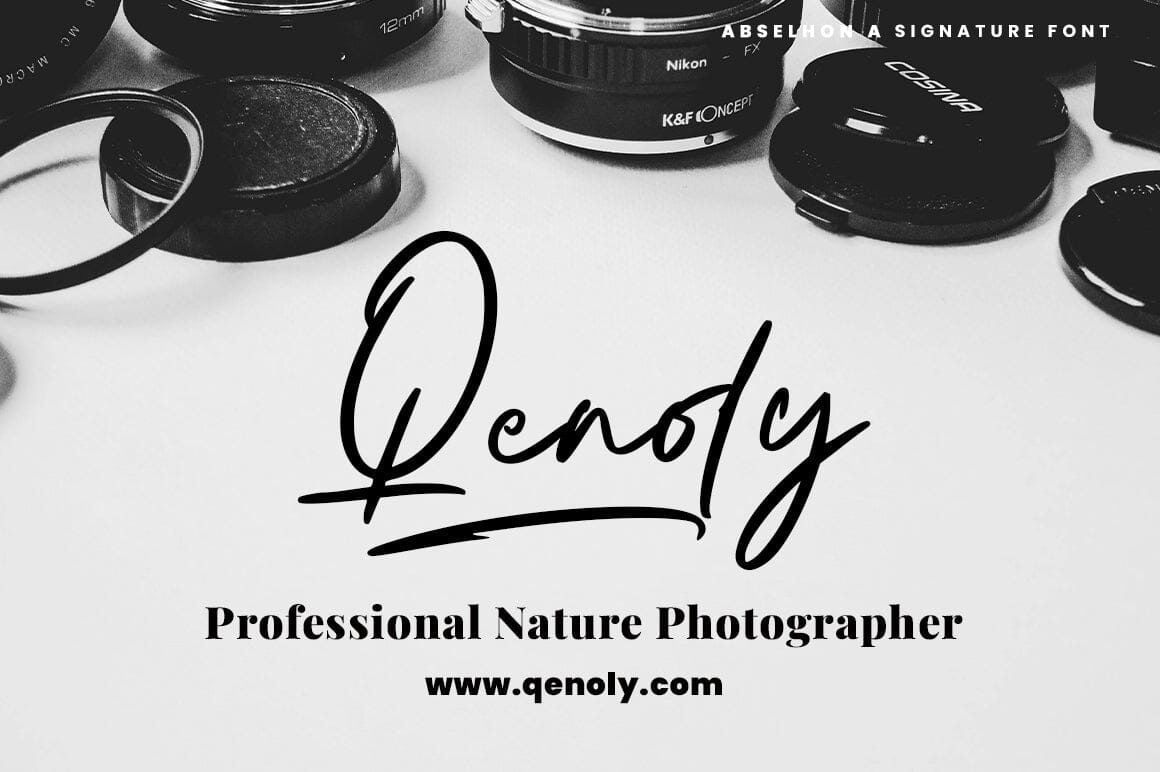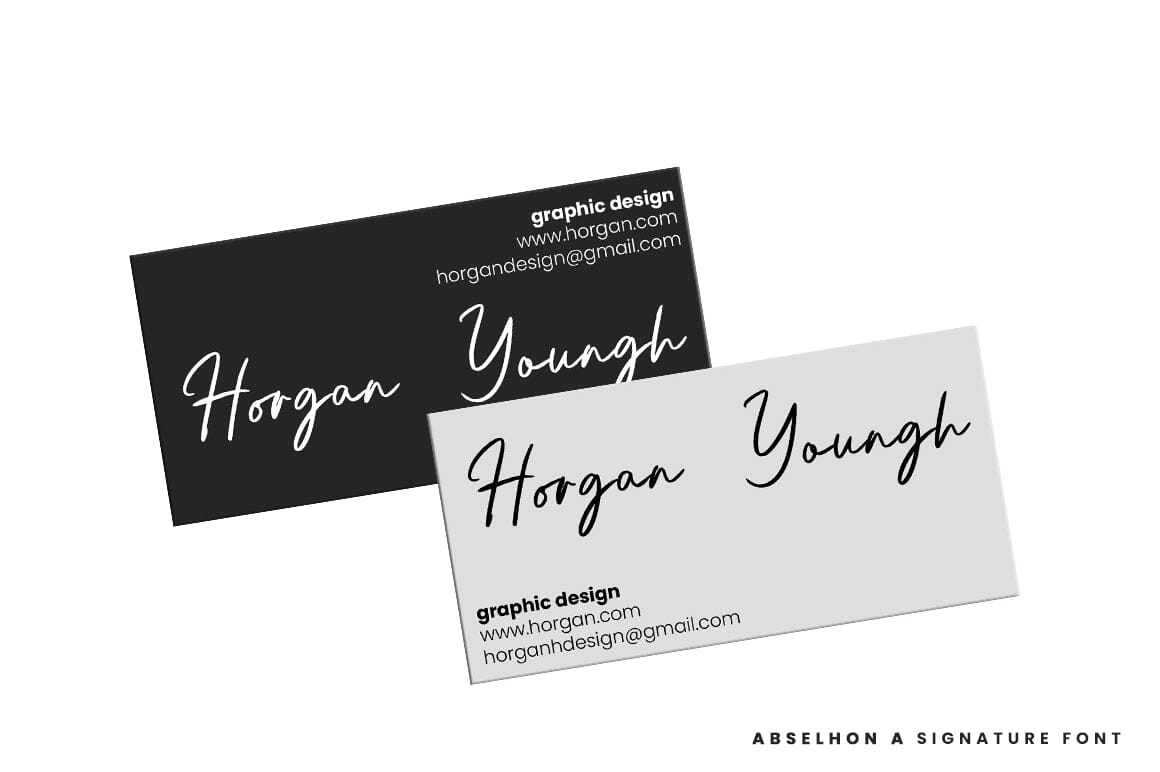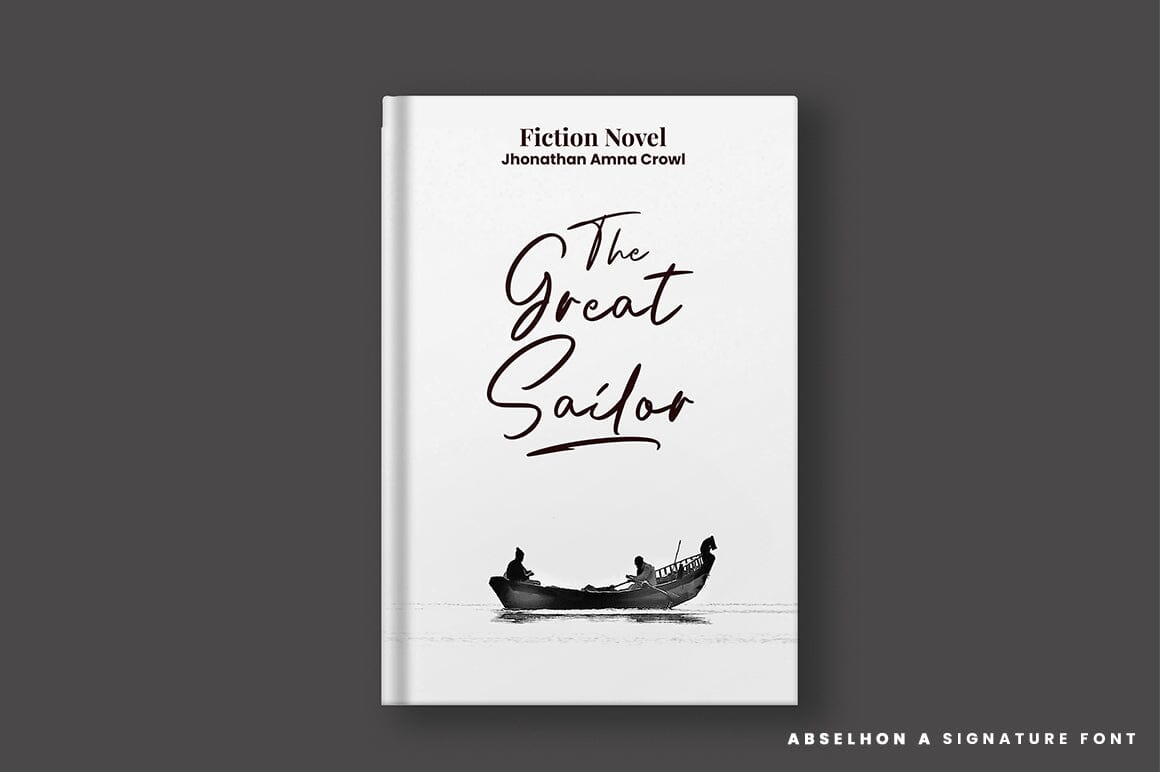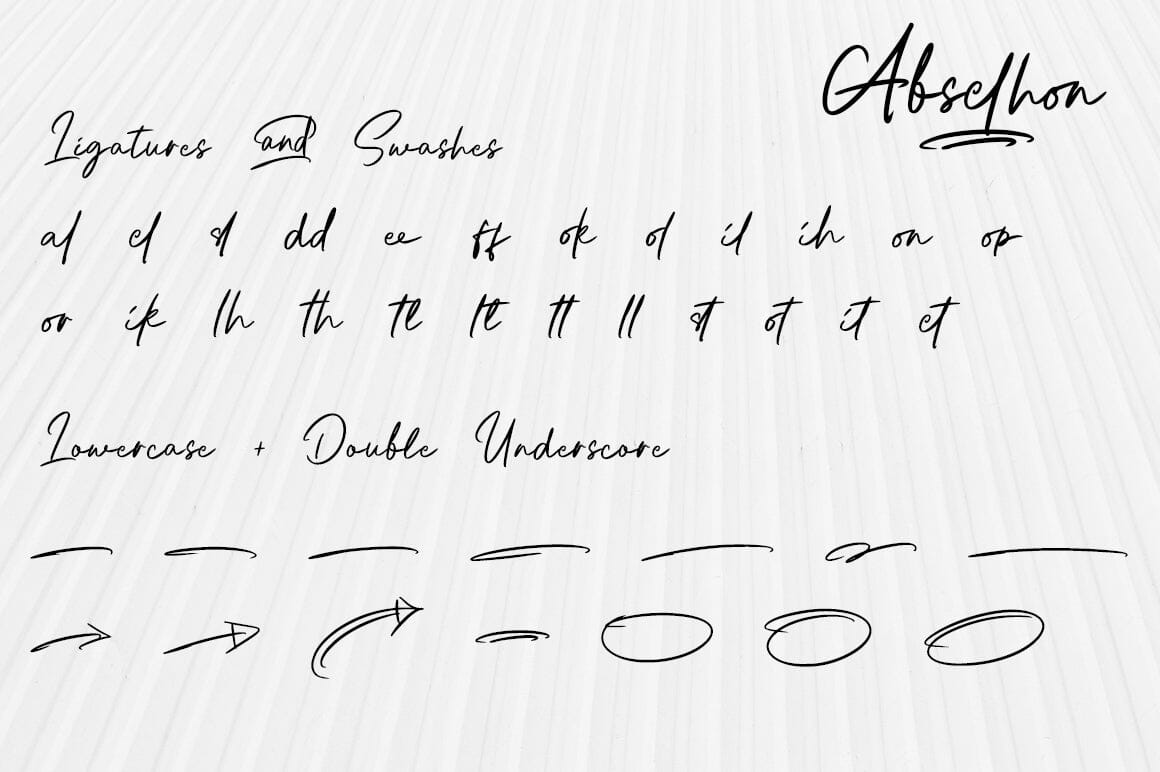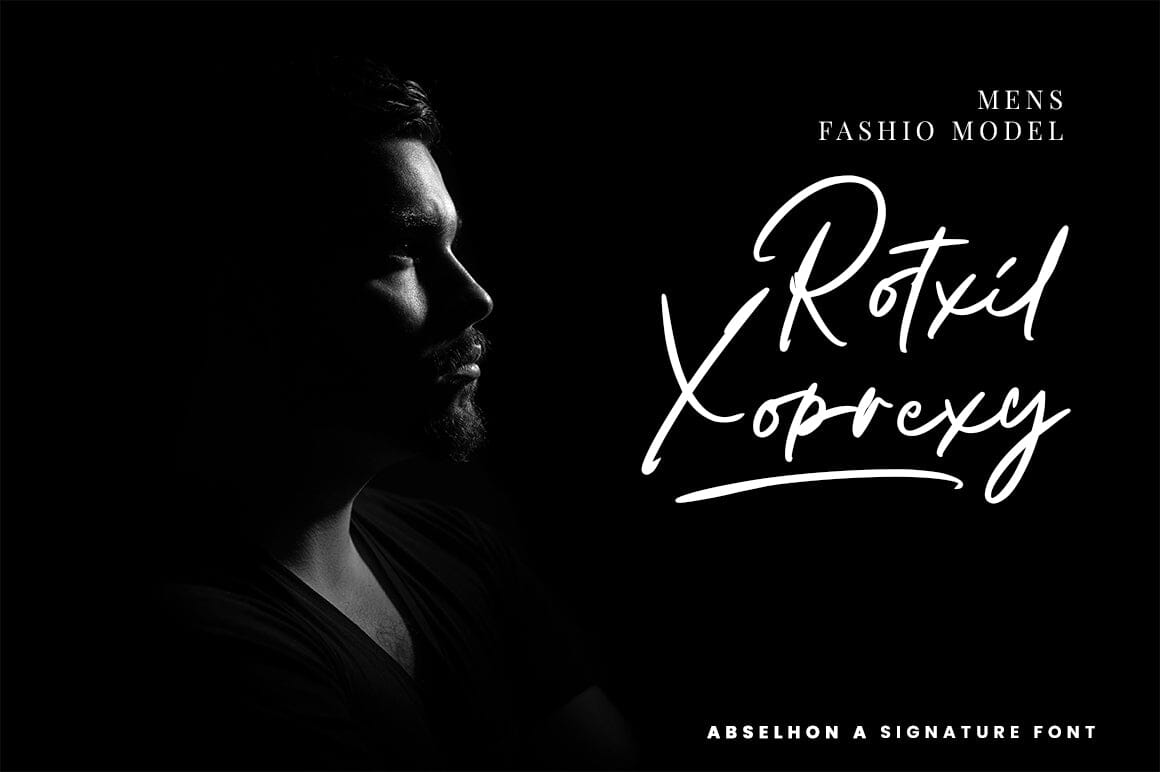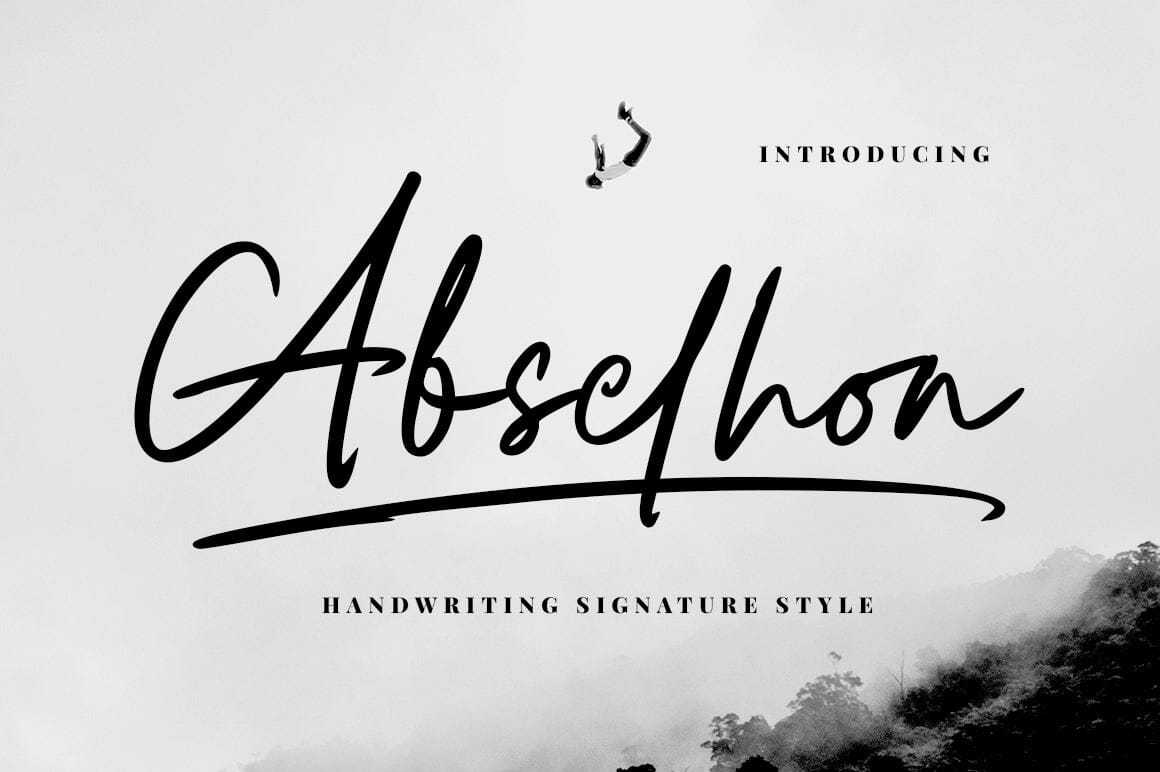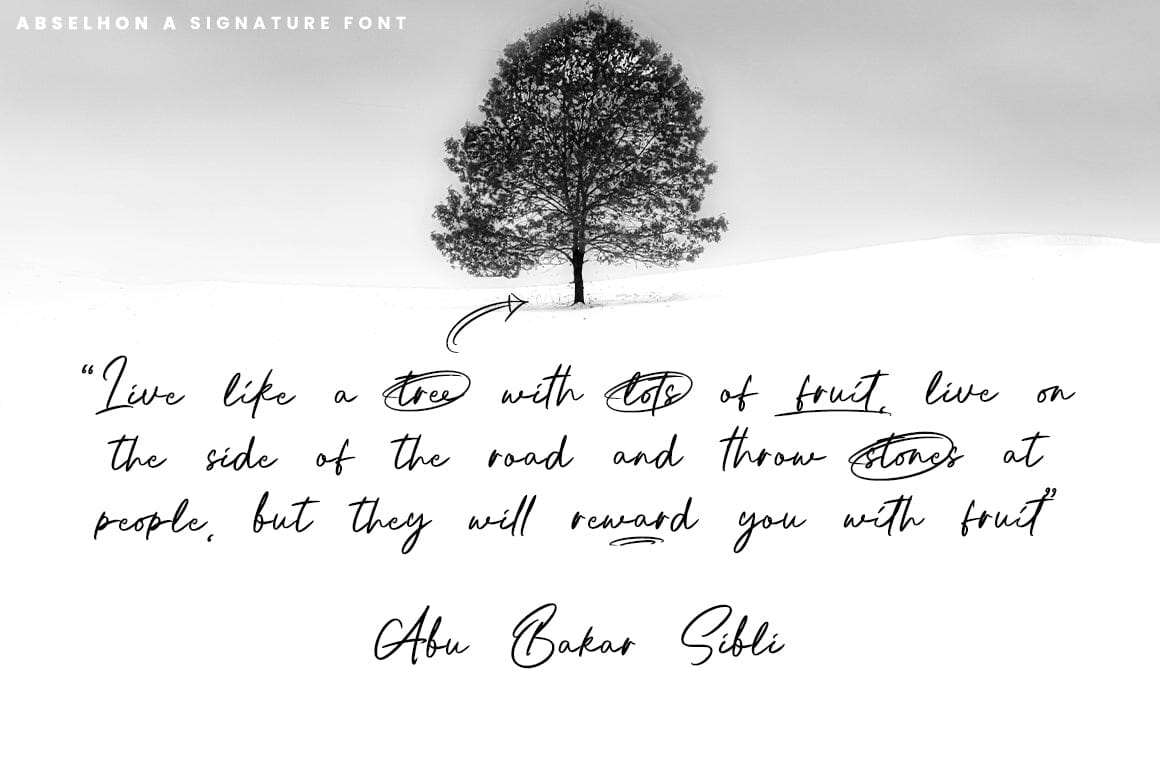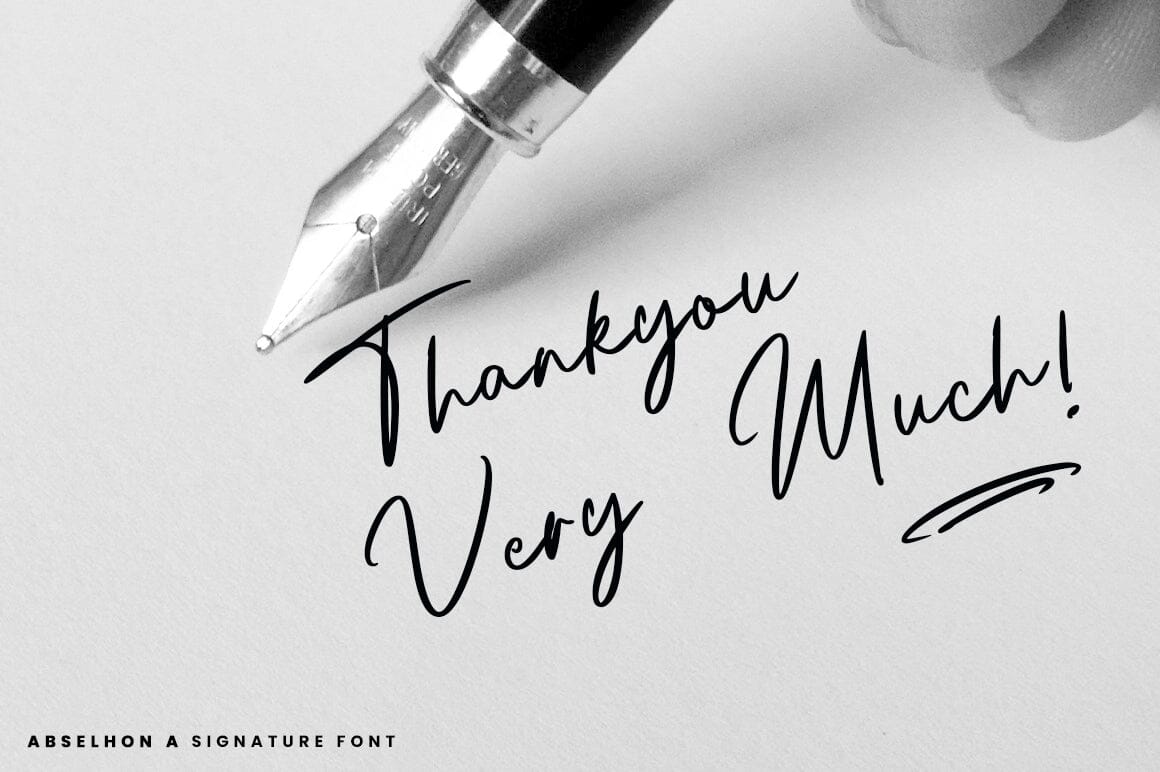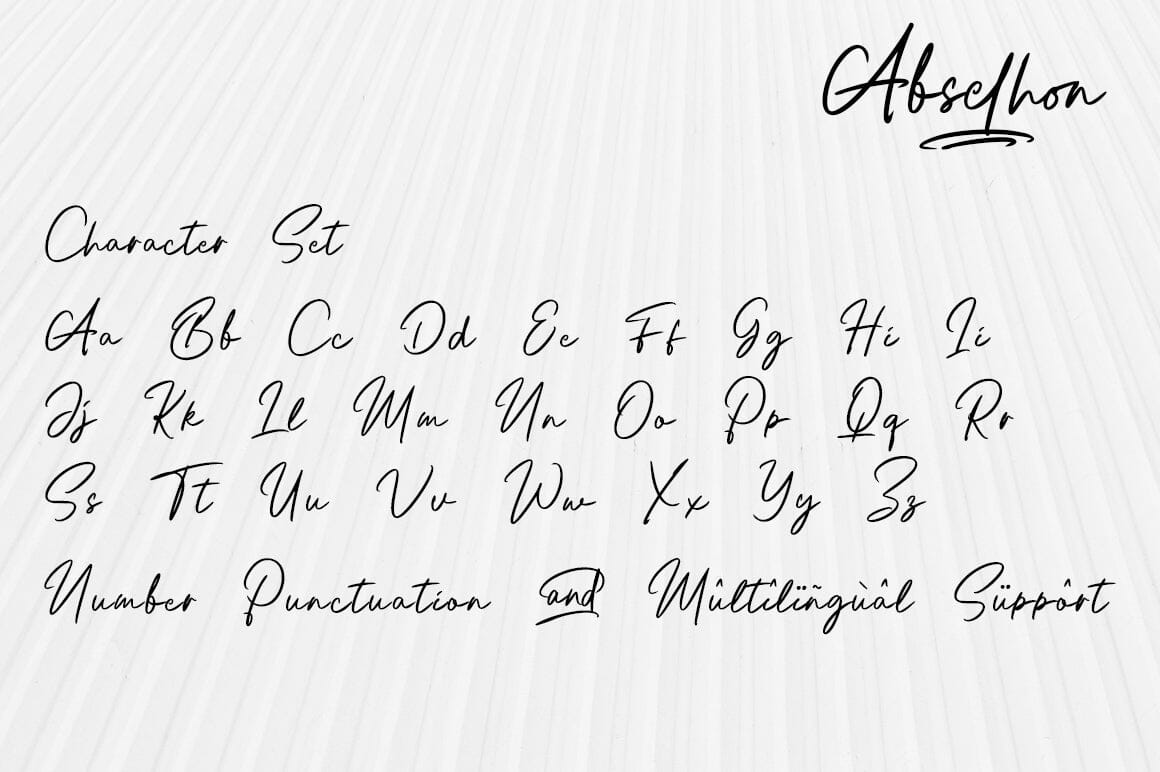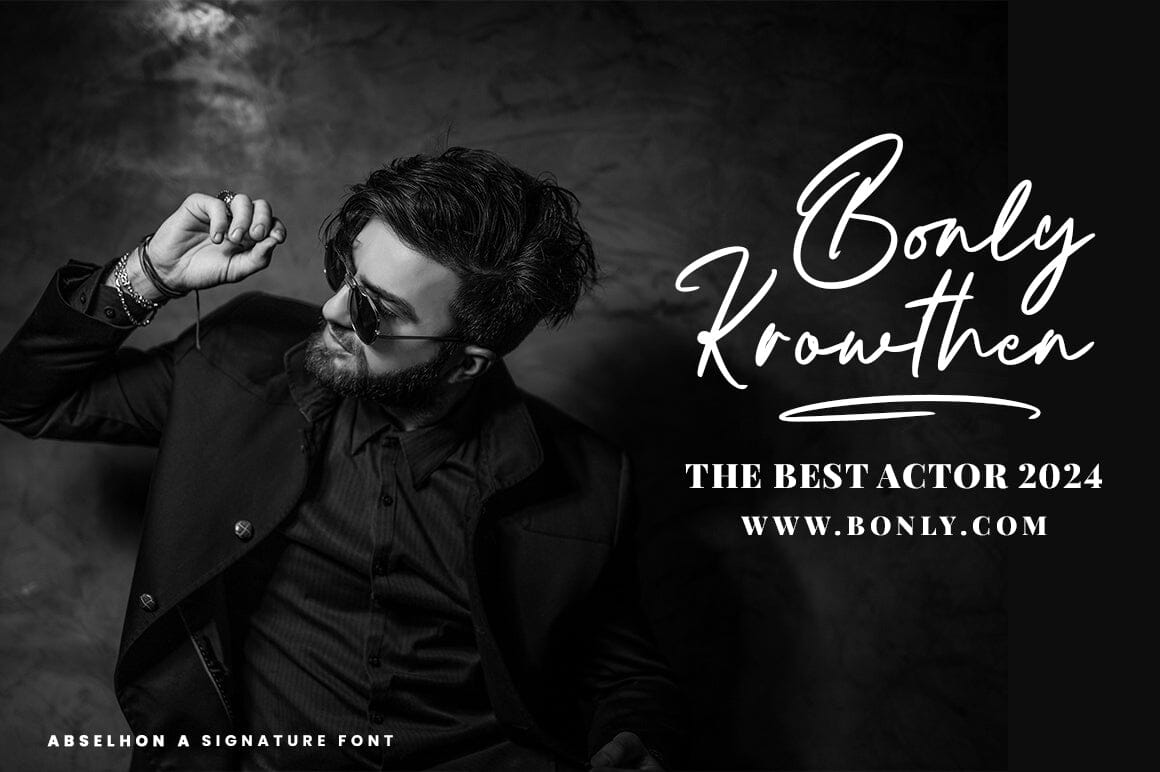
Abselhon handwritten signature font
Introducing Abselhon, a handwritten signature font with an aesthetic touch, with soft and unique strokes. Give a unique and interesting touch to your design projects, Abselhon is quite versatile in various projects such as stationery, websites, printing, packaging, clothing, wedding stationery, prints, quotes, social media graphics, planners, greeting cards, logos, branding, and much more. Thank you so much for checking out my shop! I really hope you enjoy it!